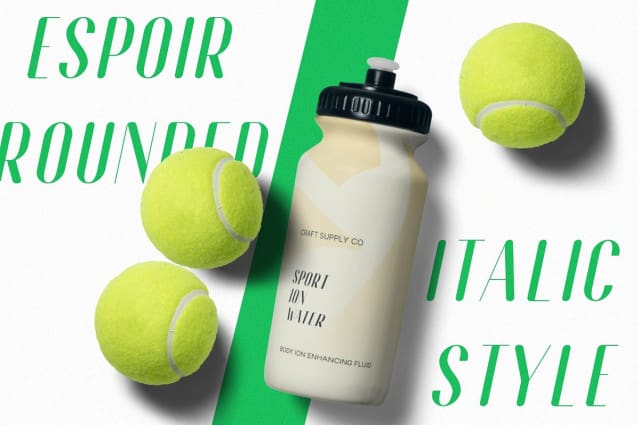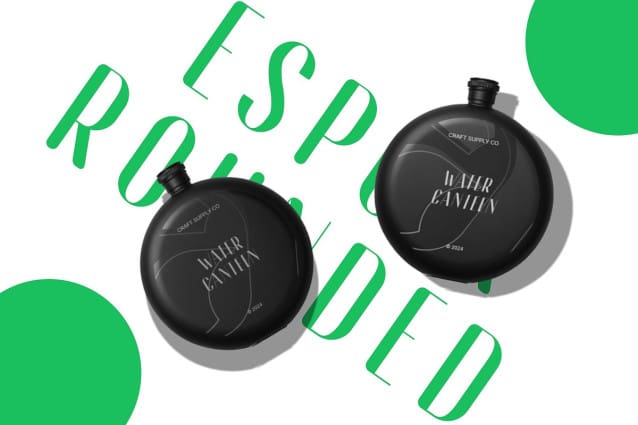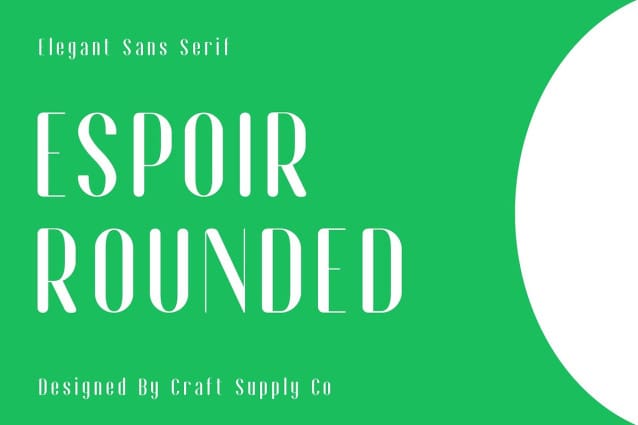
Espoir Rounded Font
Espoir Rounded Font: Elegant Sans Serif, Sleek and Refined Design Espoir Rounded presents a sleek and refined sans serif style that exudes elegance in every curve. Its rounded edges offer a soft and inviting appeal, making it suitable for a wide range of design applications.
High Contrast for Impact With its high contrast design, This font commands attention effortlessly. The sharp contrast between thick and thin strokes enhances legibility and adds a touch of sophistication to any project.
Versatile Elegance Espoir Rounded’s timeless elegance makes it versatile across various design contexts. From branding and packaging to web design and editorial layouts, this font elevates the visual appeal of any project.
Modern Yet Timeless While This font embodies modern sophistication, its rounded forms and high contrast evoke a timeless charm. It seamlessly blends contemporary design trends with classic elements, ensuring its relevance for years to come.
Timeless Elegance This font stands out as a versatile and elegant sans serif font. With its rounded design and high contrast, it adds a touch of sophistication to any project, making it a timeless choice for designers seeking elegance and impact. Its versatility allows it to adapt effortlessly to various design needs, ensuring consistent visual appeal across different applications.